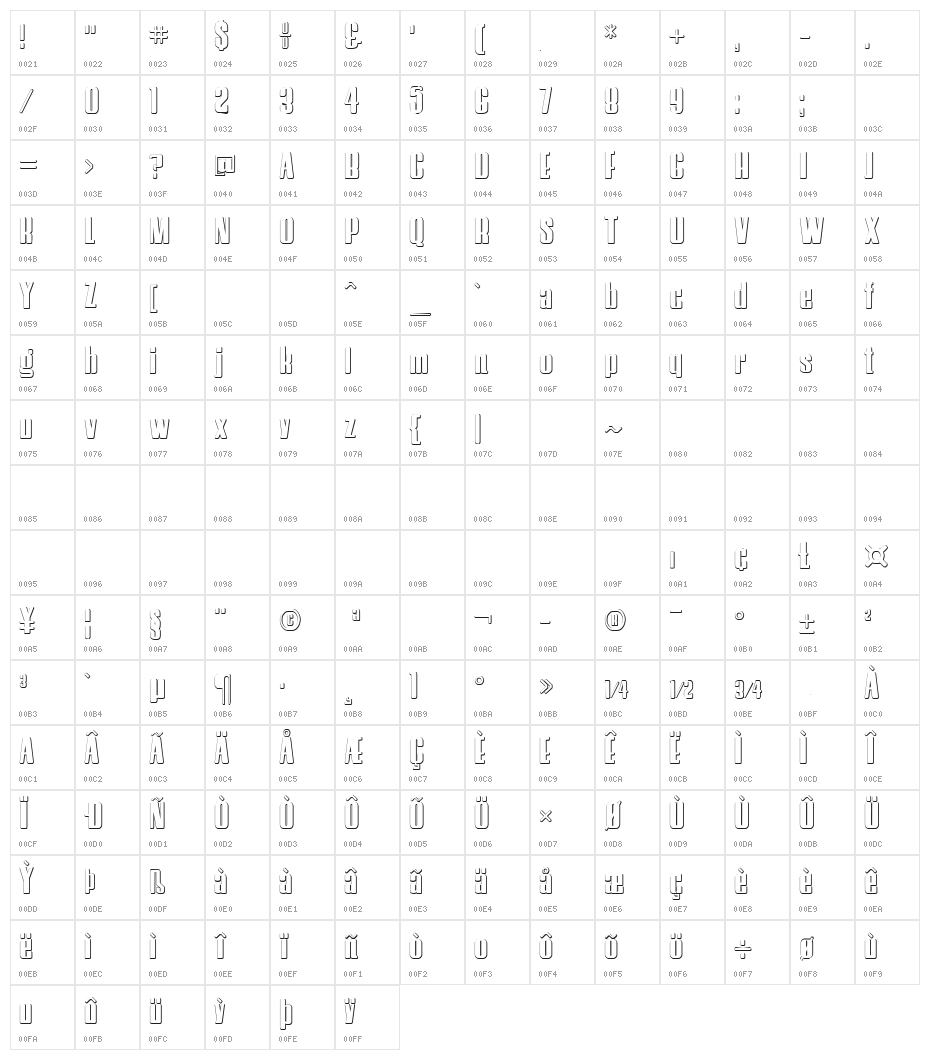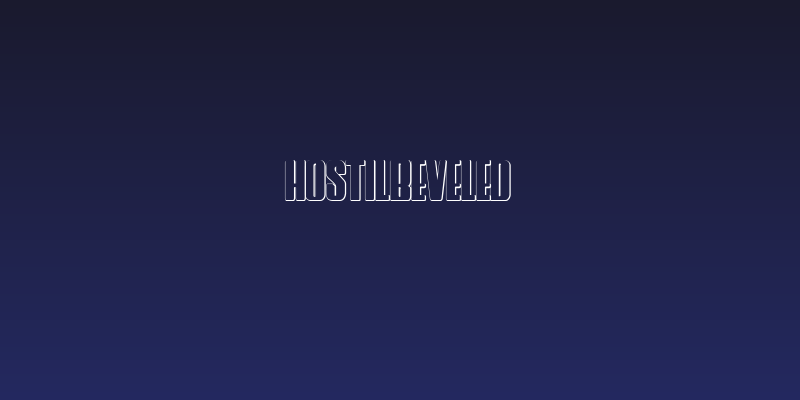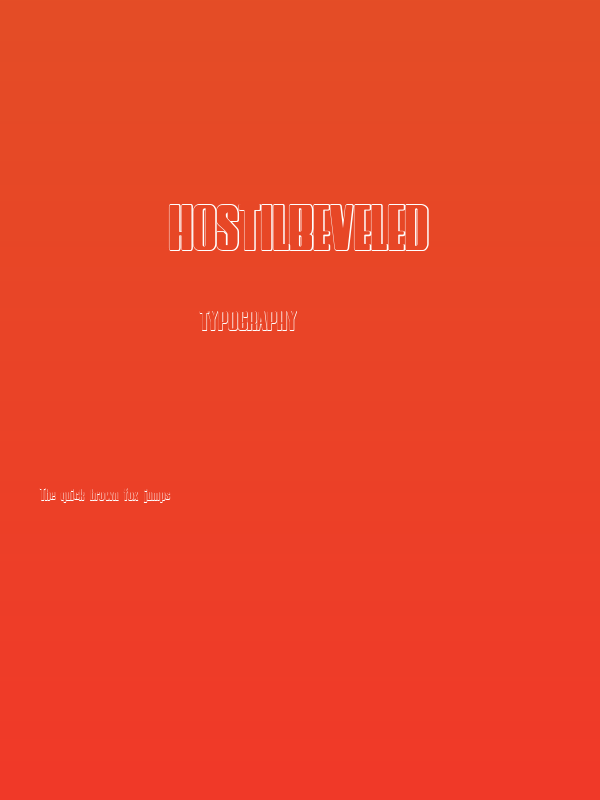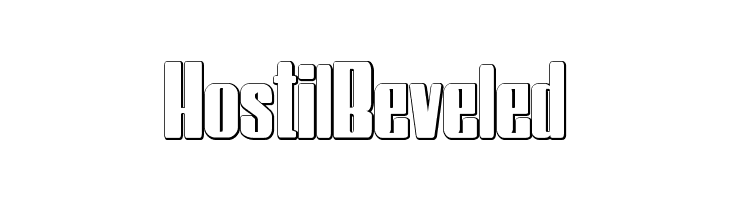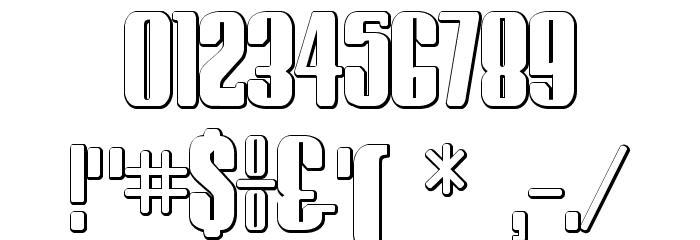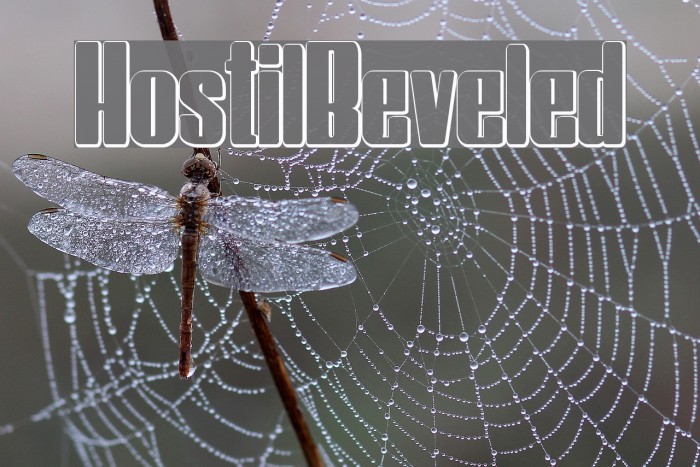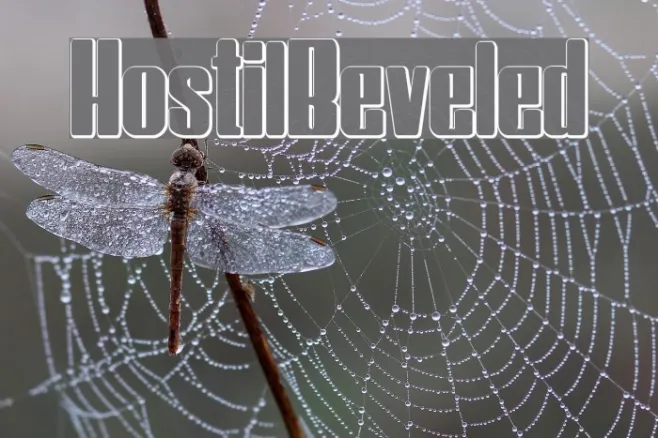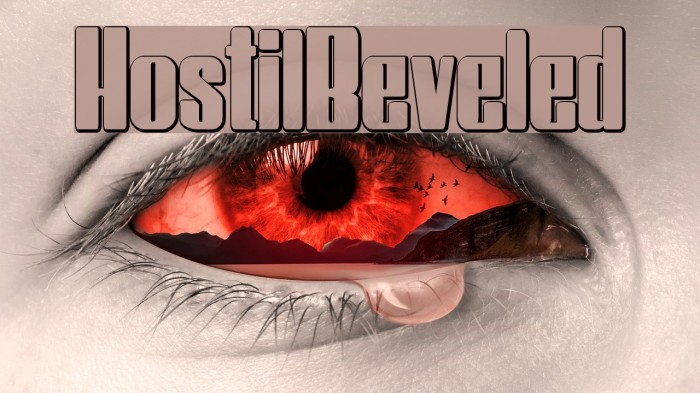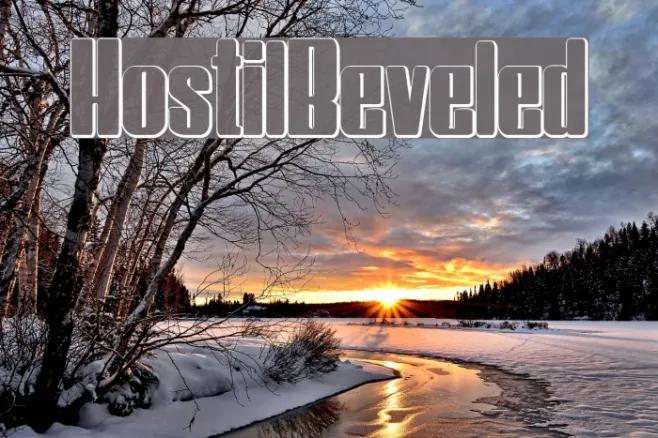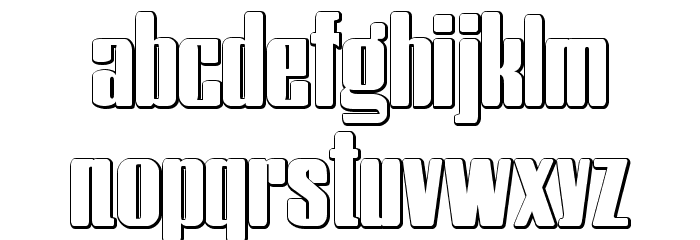
HostilBeveled Font
HostilBeveled Description
This font features a bold and striking design with beveled edges that give it a three-dimensional appearance. The uppercase and lowercase letters are uniformly wide, creating a strong visual impact. The numbers and special characters maintain the same bold style, ensuring consistency across all text elements. The font's design is modern and eye-catching, making it suitable for projects that require a bold statement. The spacing between characters is tight, enhancing the compact and robust look of the text.
| Proposed Projects | Ideal for headlines, posters, logos, and any design that requires a bold and impactful typeface. |